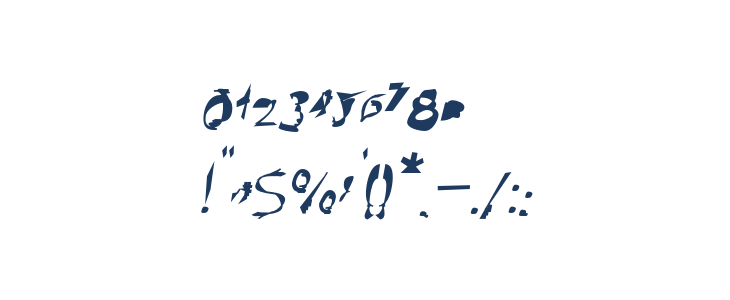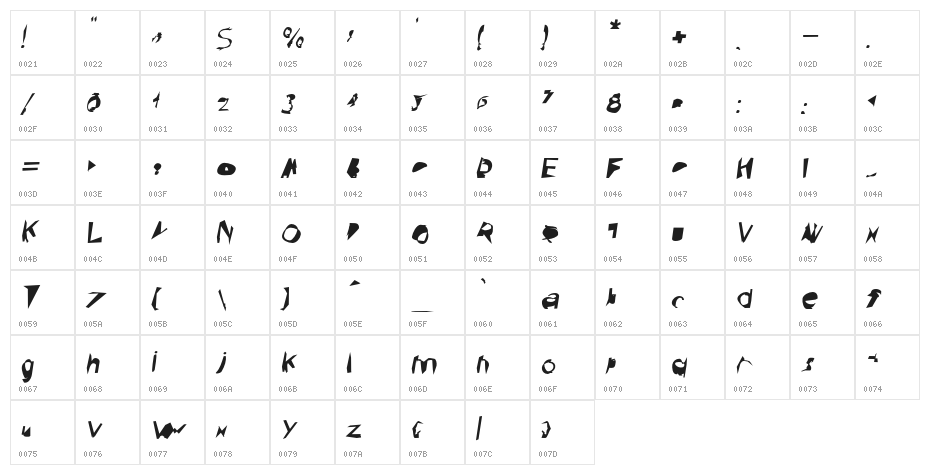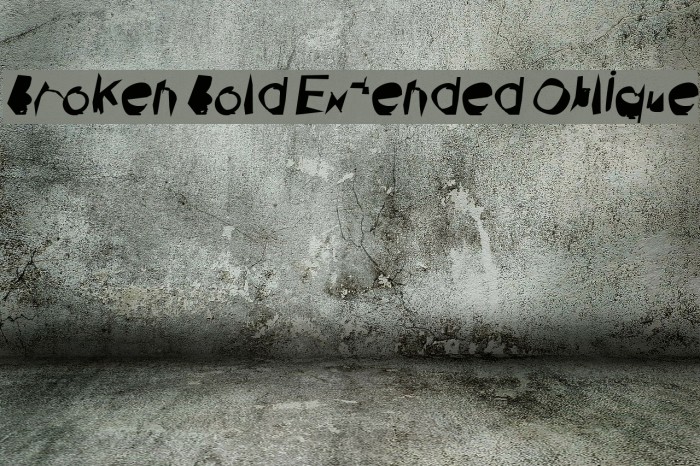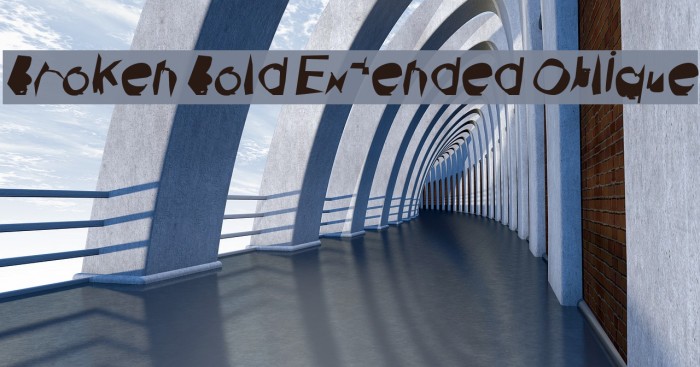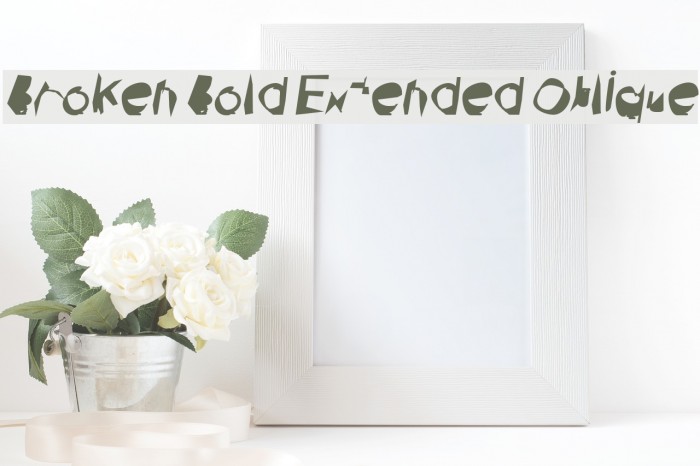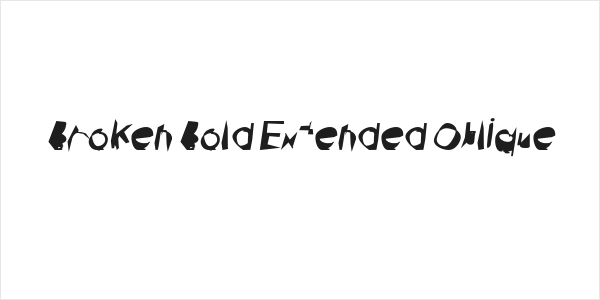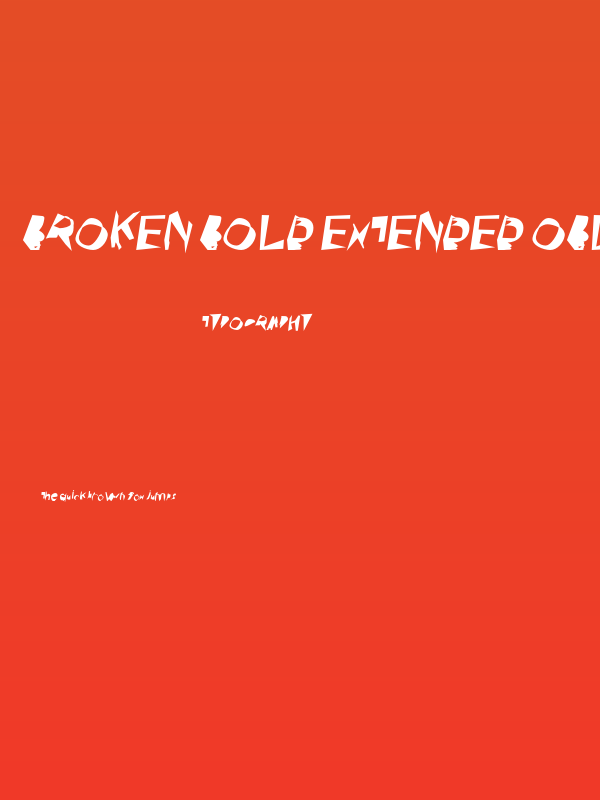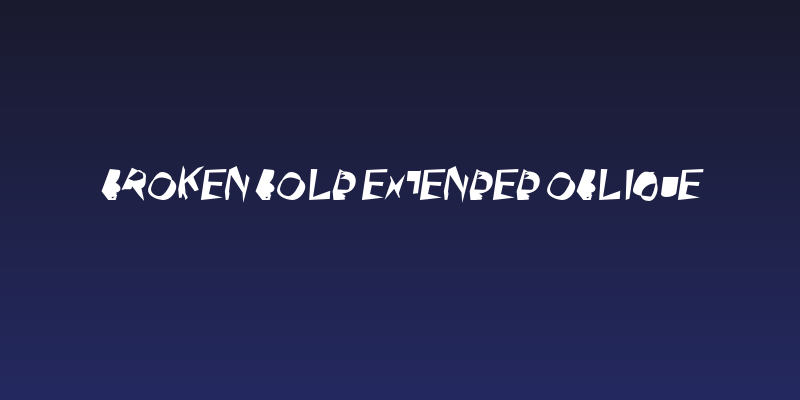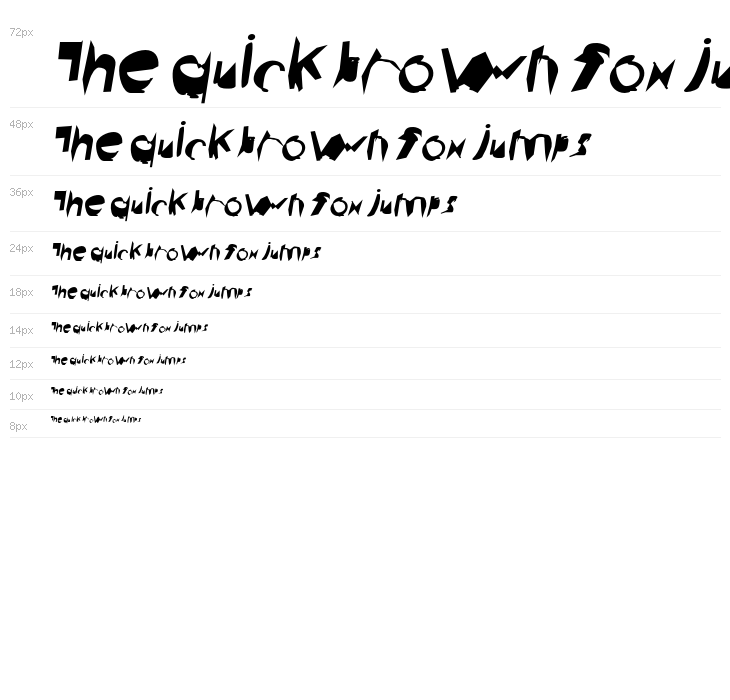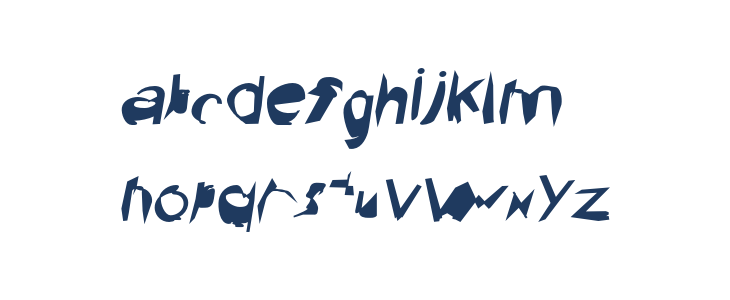
Broken Bold Extended Oblique Font
Broken Bold Extended Oblique Description
This font features a bold and extended style with a distinct oblique slant, creating a dynamic and edgy appearance. The characters are fragmented and angular, giving them a broken and abstract look. The uppercase and lowercase letters maintain a consistent design theme, with sharp edges and irregular shapes that convey a sense of movement and energy. The numbers and special characters follow the same aesthetic, ensuring uniformity across the font. This unique style is eye-catching and unconventional, making it suitable for projects that require a standout visual element.
| Overall Style | Modern, Abstract |
| Proposed Projects | Ideal for album covers, modern art posters, edgy branding, and creative advertising campaigns. |